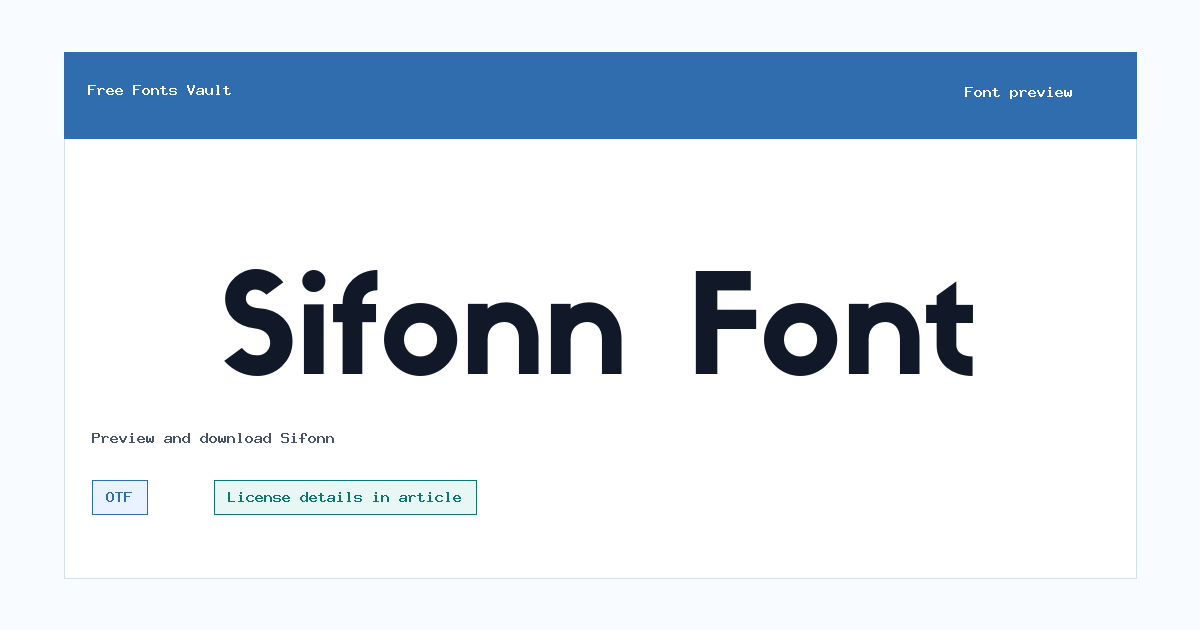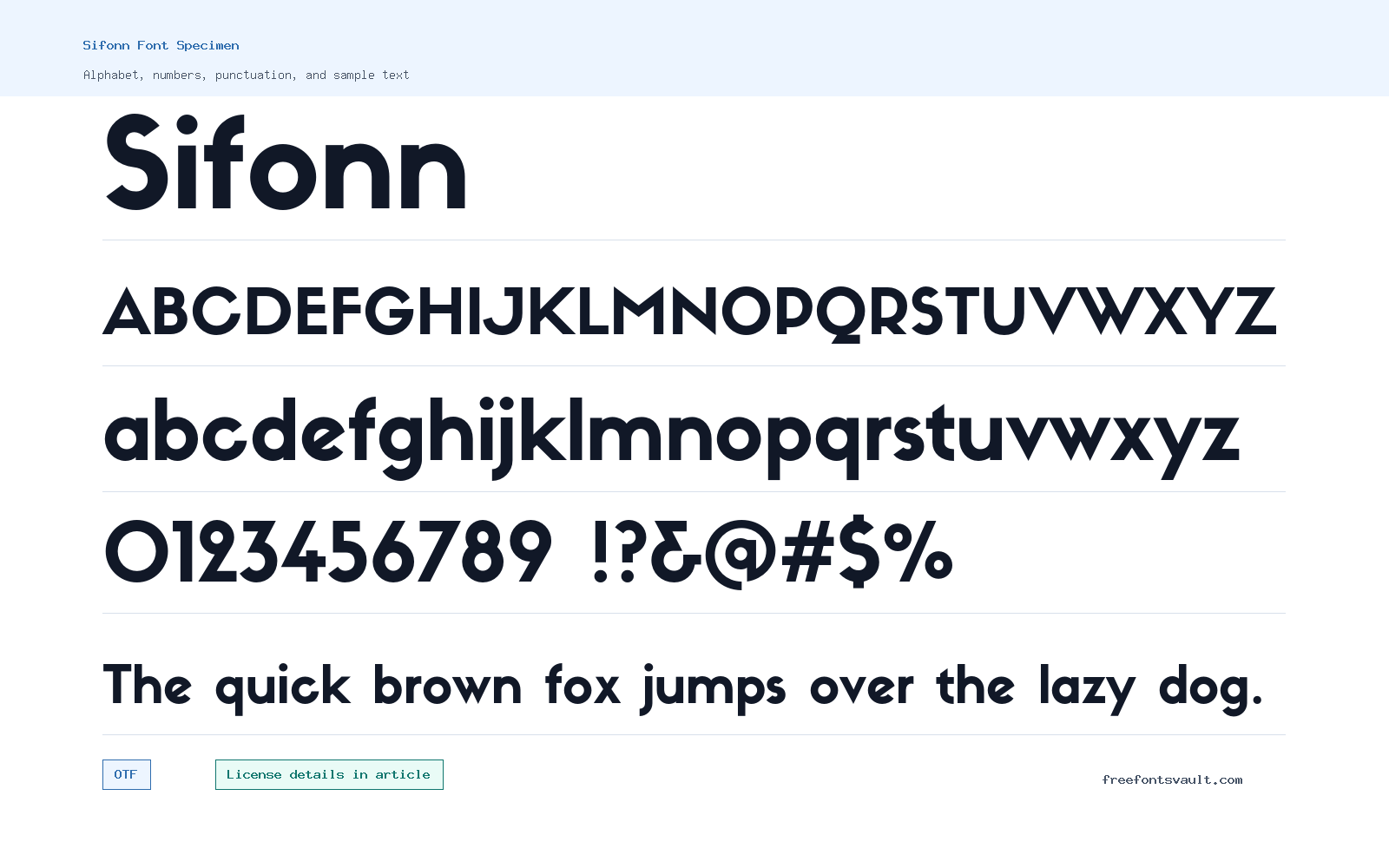
Sifonn
- Designer Rafa Goicoechea
- Foundry Rafa Goicoechea
Sifonn is a geometric display font with a clean, art-deco feel. Its sharp curves, tall shapes, and decorative rhythm make it best for short text that needs a polished headline look.
About Sifonn
Sifonn was designed by Rafa Goicoechea, with the local download using an OpenType file named SIFONN-BASIC.otf. The style is closer to a display sans than a reading font: it works through simple geometric construction, neat spacing, and letterforms that feel elegant without being overly ornate. Luc Devroye’s type information page describes Sifonn Pro as a 2013 geometric display sans with interlocking pairs, while noting that a basic tweetware version also existed. That helps explain why this Basic font is most useful when you want the Sifonn look for compact display settings rather than long paragraphs.
Use Sifonn for posters, magazine titles, fashion graphics, cover designs, event flyers, logo concepts, and short all-caps headings. Try it in the preview with one to four words first, then test the same text at a smaller size. The design can look striking in large type, but its display character may lose clarity in body copy, dense menus, or long descriptions. If you are building a brand mark or client project, check the license carefully and compare the Basic font with the paid Sifonn Pro option, which is sold by Ultra Types and lists a larger glyph set plus web formats.
- Geometric display sans style with a refined art-deco tone
- Posters, covers, magazine titles, and event flyers
- Fashion graphics, logo concepts, short headings, and decorative social visuals
Sifonn is credited to designer Rafa Goicoechea, who is also listed as the foundry/author in the local font data.
Set Sifonn large, give it breathing room, and use it for short words or compact phrases. Pair it with a plain sans serif for body text so the display letters can stay decorative without hurting readability.
Who designed Sifonn?
Sifonn is credited to Rafa Goicoechea.
What kind of font is Sifonn?
Sifonn is a geometric display sans with an art-deco feel. It is better for titles and visual graphics than for long reading text.